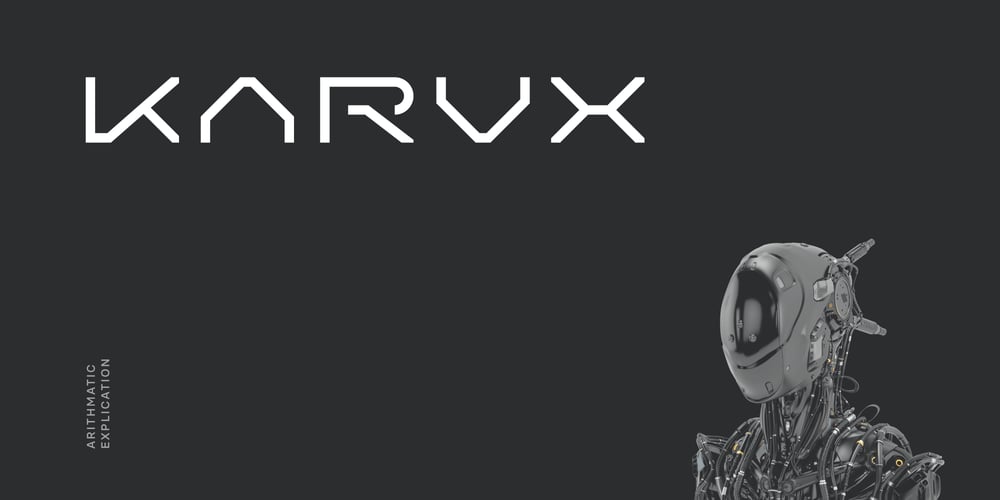
Karvx Font Family was designed by Andrew Seah and published by Baqoos. Karvx contains 3 styles and family package options. Karvx is an arithmetic explication tech sans apt for headline, editorial, branding, packaging, printed materials and typographic applications. 200+ glyphs with ligatures and fractions provided in opentype .otf and .woff format.